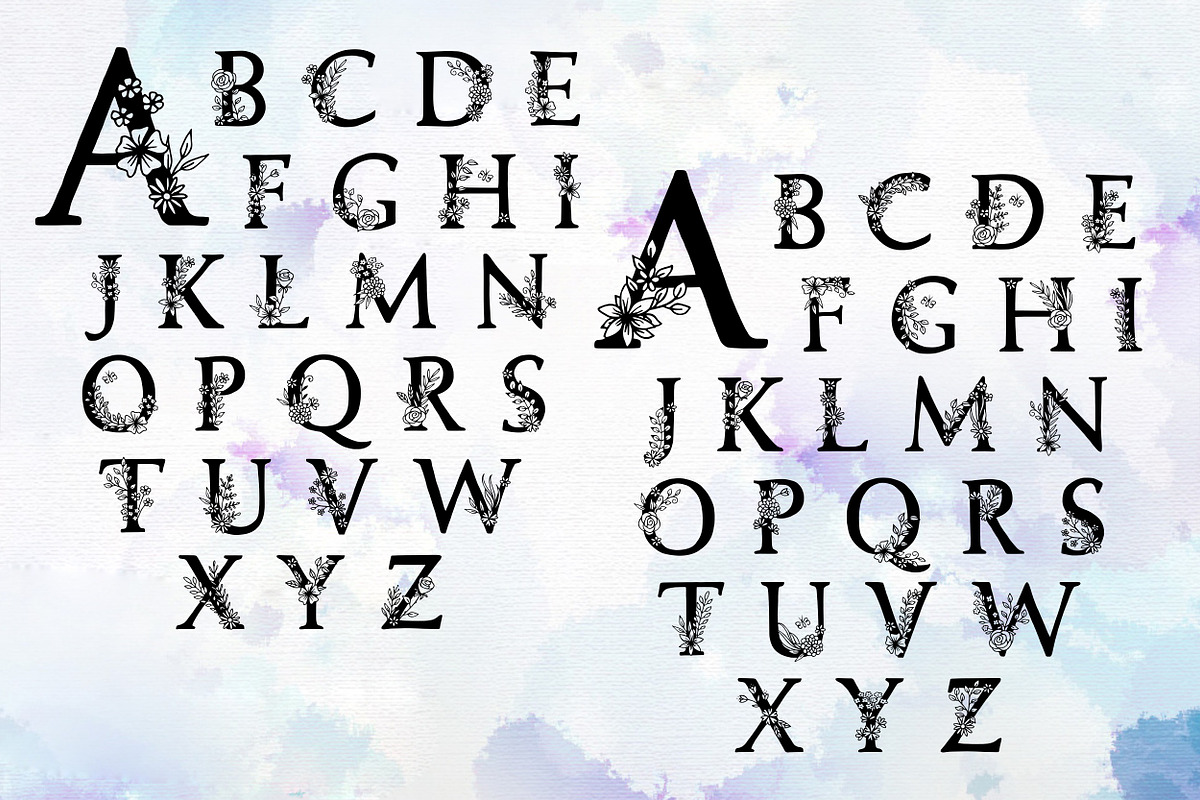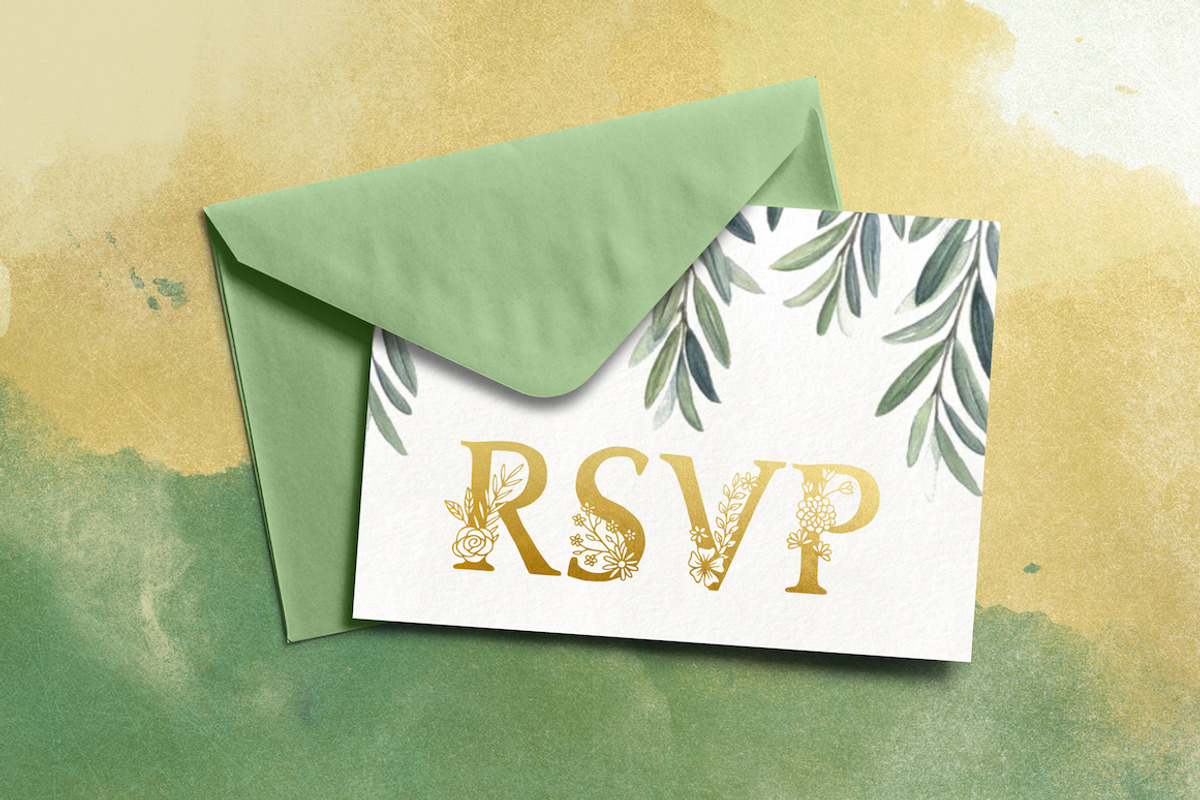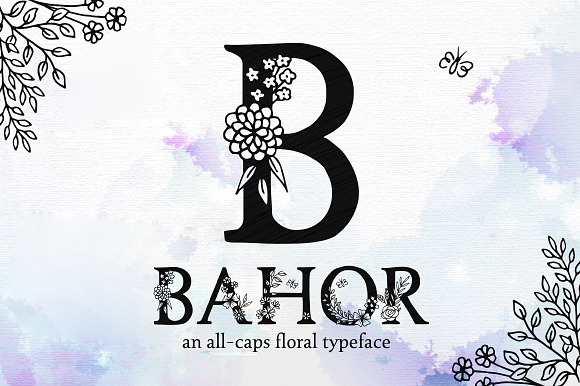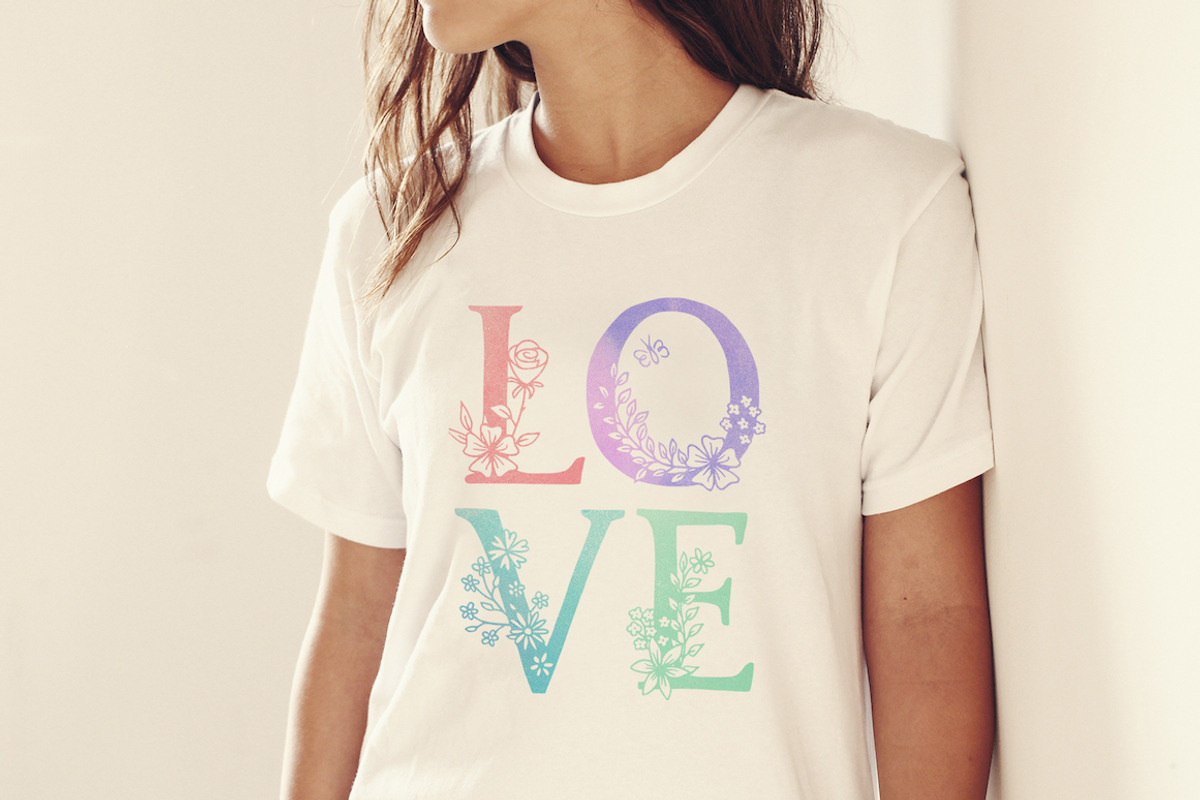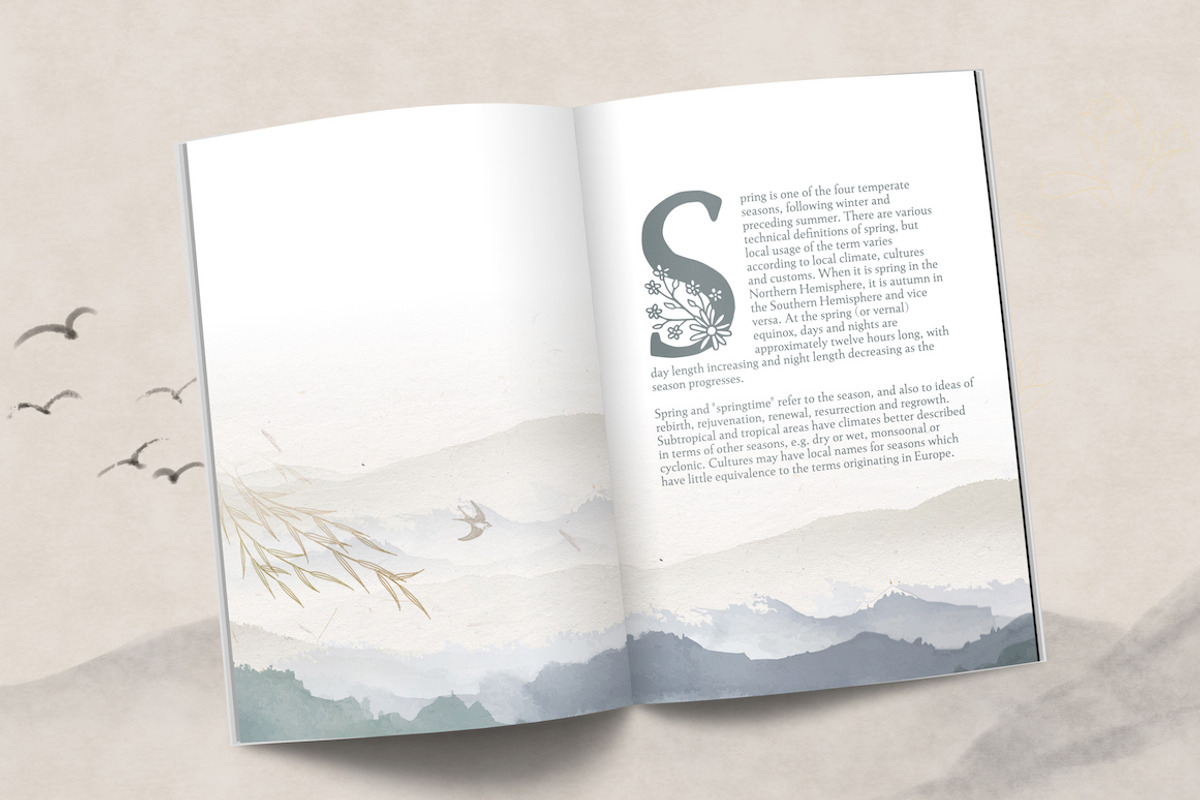
Bahor - Floral Spring Typeface
Bahor is a hand drawn floral display font with black ink serif letters and beautiful flowers. The flower decoration is different in the upper and lower case section, to add variety and diversification to your words.
By the way, Bahor/Bakhor is a girl's name from Uzbekistan and means "spring".